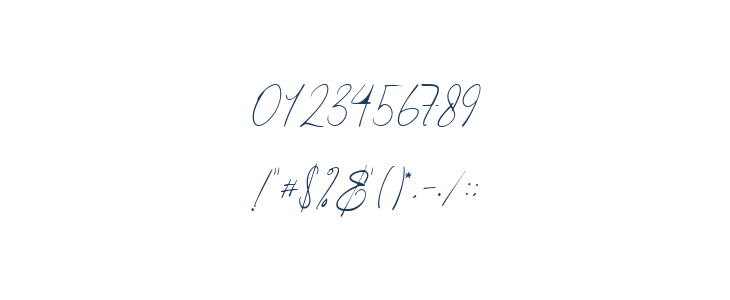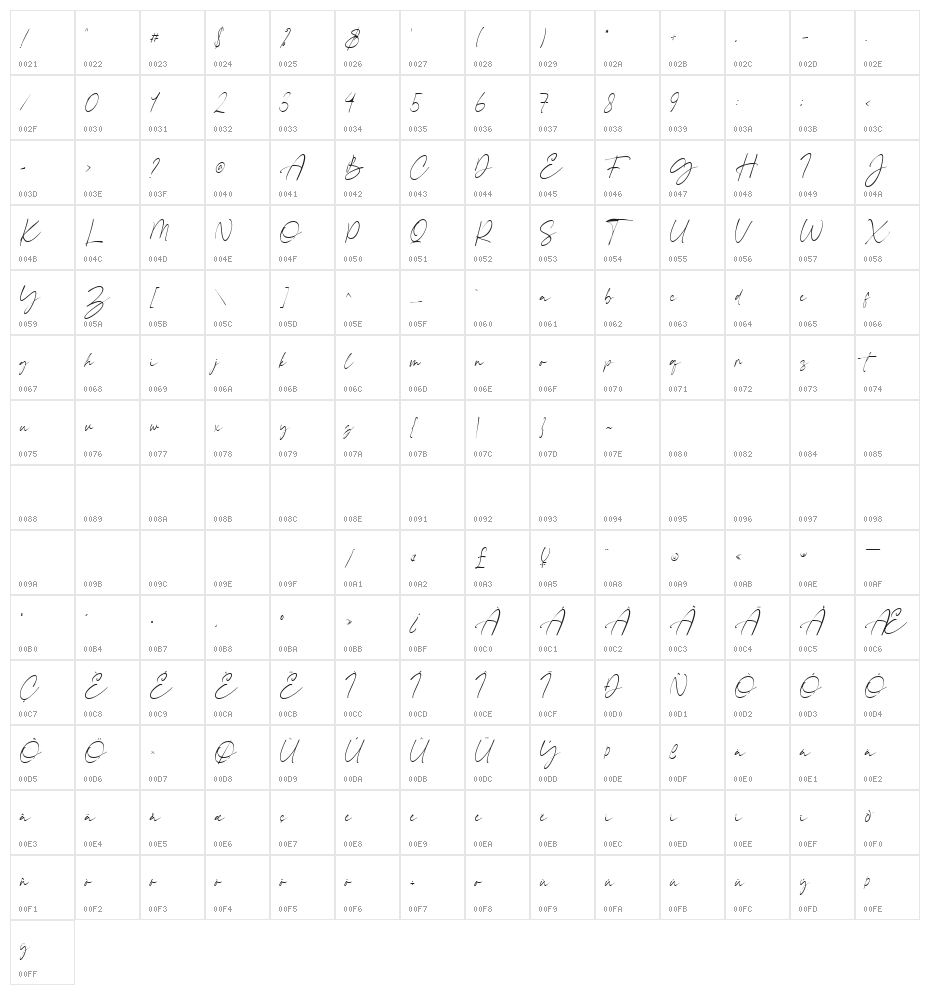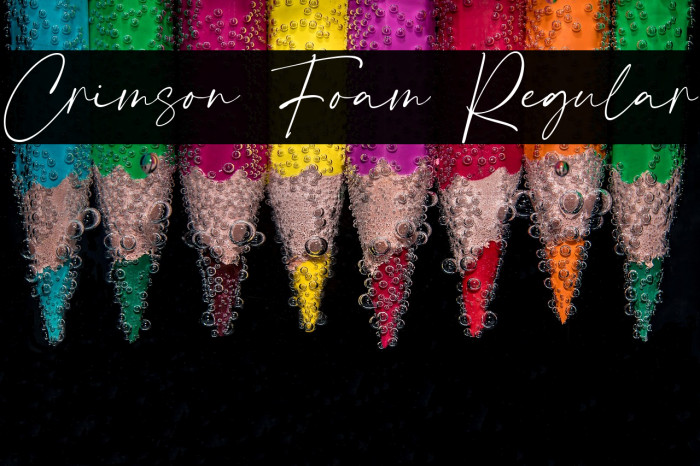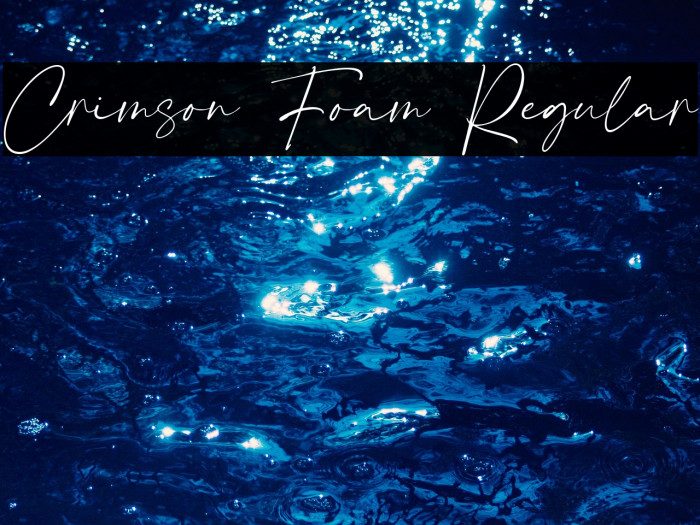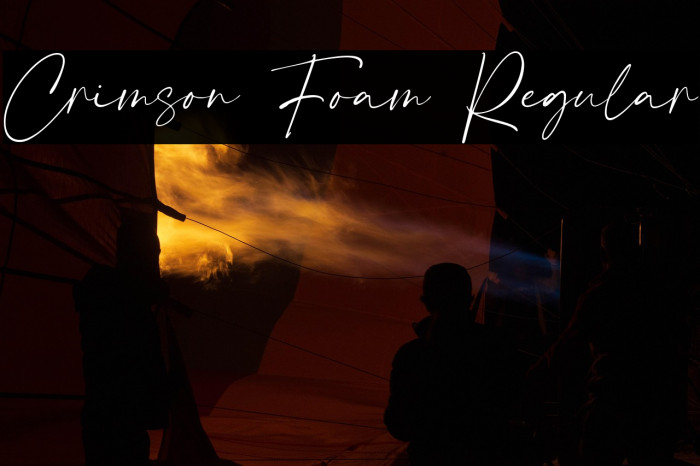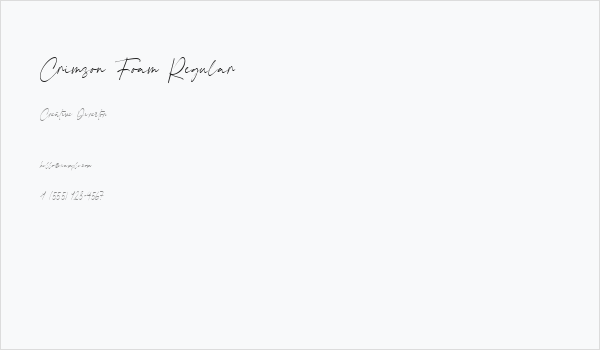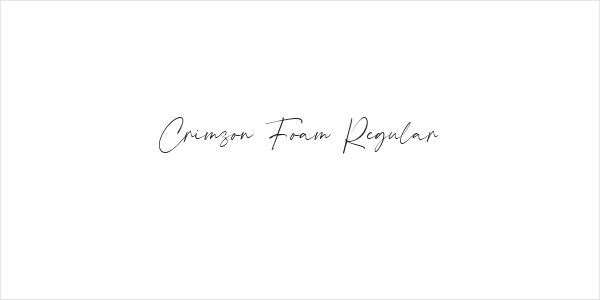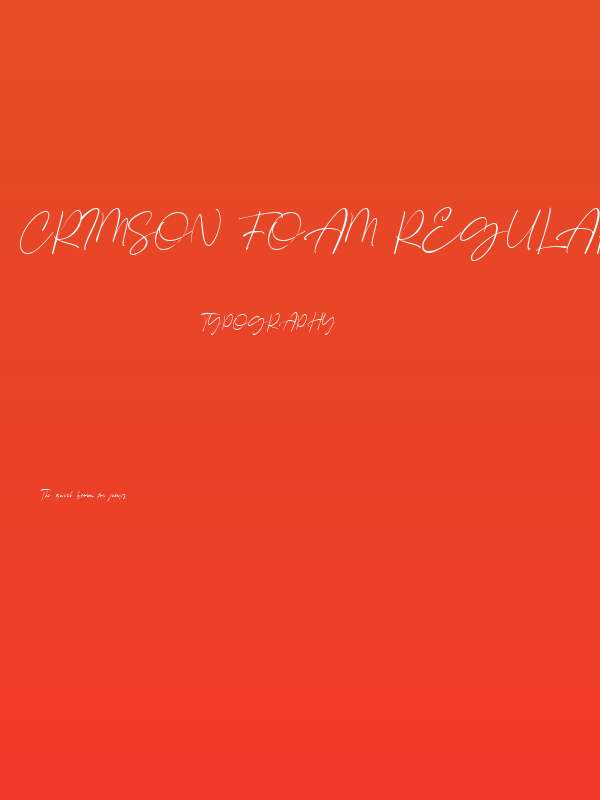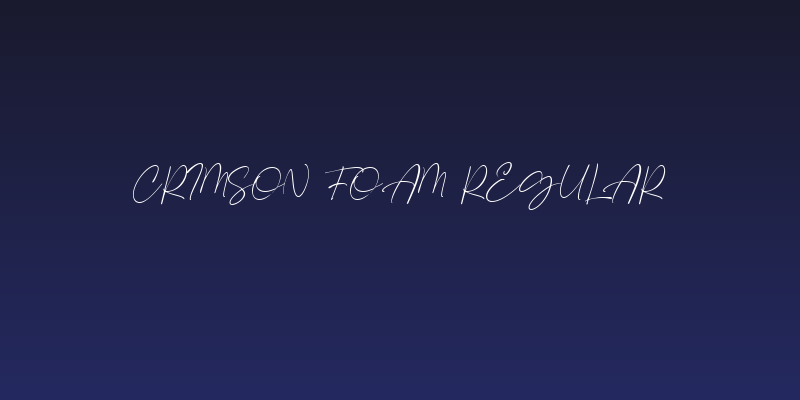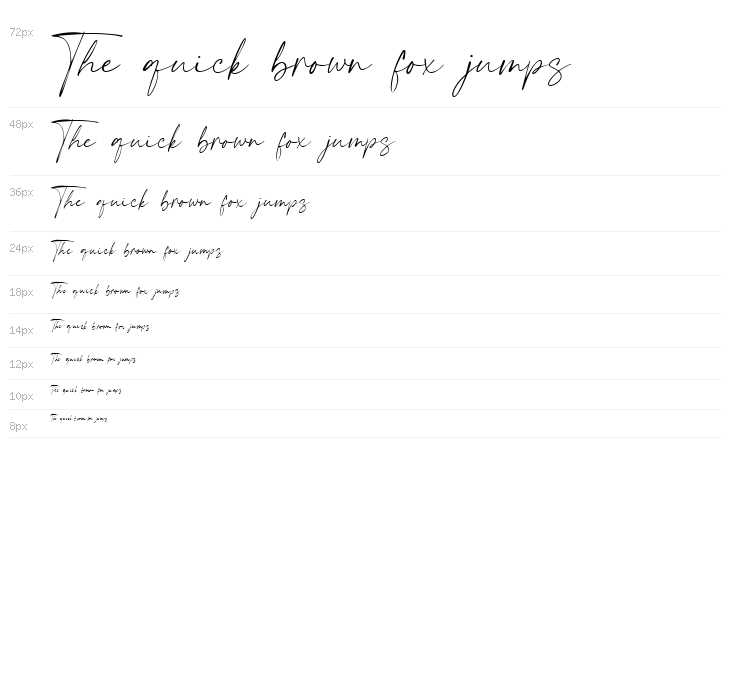
Crimson Foam Regular Font
Crimson Foam Regular Description
This font features an elegant, flowing script style that mimics the fluidity of natural handwriting. The characters are connected with smooth, sweeping strokes, giving it a graceful and sophisticated appearance. The uppercase letters are tall and slightly exaggerated, while the lowercase letters maintain a consistent flow, enhancing readability. The numerals and special characters are designed to complement the overall style, maintaining the same fluidity and elegance. This font is perfect for projects that require a personal touch or a sense of elegance and refinement.
| Overall Style | Elegant, Sophisticated |
| Proposed Projects | Ideal for wedding invitations, greeting cards, branding, and elegant logo designs. |